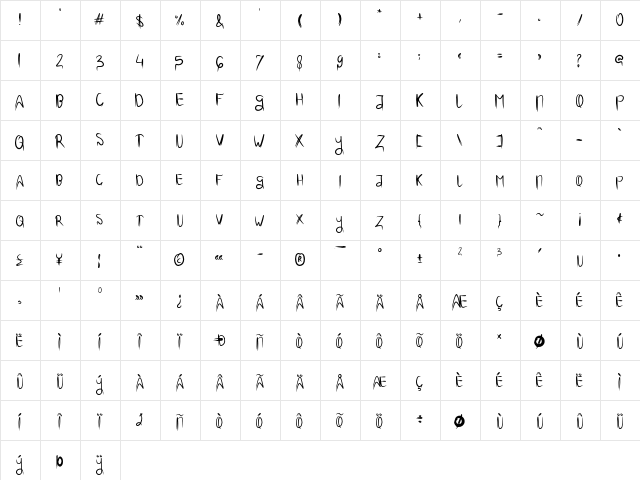
SCARY OF HORROR Regular
Design Context for SCARY OF HORROR Typeface
SCARY OF HORROR leans into the macabre with letterforms designed to disturb and intrigue in equal measure.
Ideal for Halloween projects, horror film titles, haunted house signage, and dark editorial design.
Font Pairing: Pair with a clean neutral sans-serif for body copy to let SCARY OF HORROR's character lead without overwhelming the composition.
Pro Tip: SCARY OF HORROR works best as a headline or focal element. Pair it against plain, neutral body text to amplify the contrast.